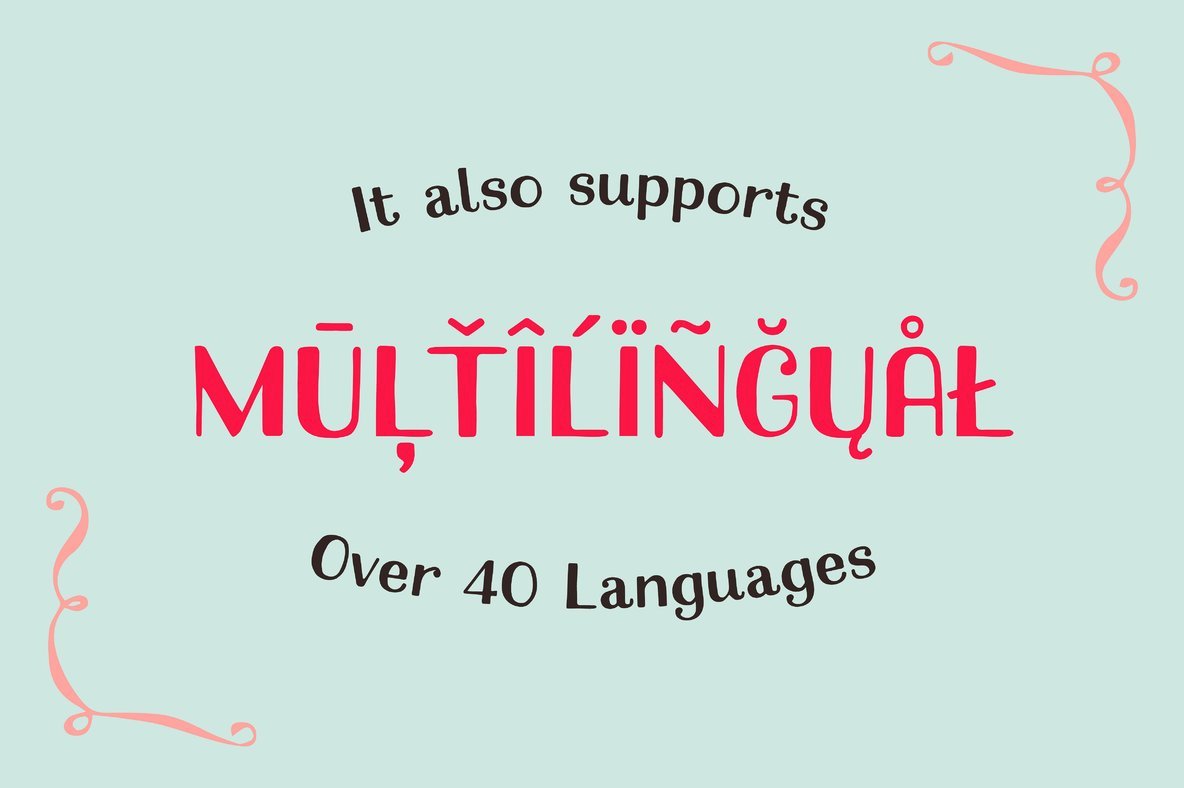
Macaron Handcrafted Font
Macaron Regular
Macaron Outline
Macaron is a charming typeface that beautifully captures the essence of vintage displays with a cute aesthetic. As a thoughtfully designed font, Macaron offers a playful collection of alternates and swashes that bring headlines and logotypes to life.Macaron: A Delightful Handcrafted Typeface